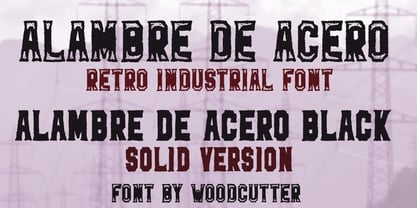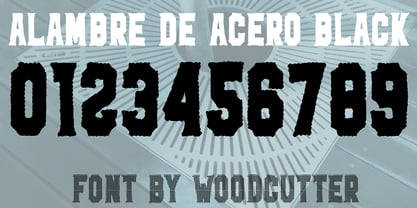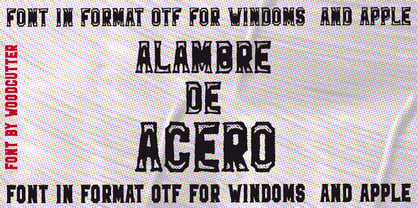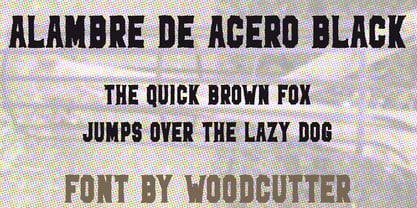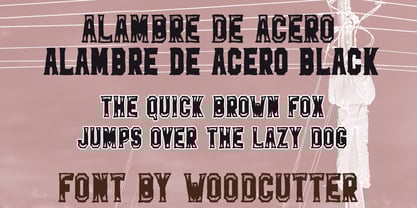
Alambre De Acero
by Woodcutter
The Alambre De Acero Font Family was designed by Jordi Manero and published by Woodcutter. Alambre De Acero contains 2 styles and family package options. More about this family
"Alambre De Acero" is a uppercase type family with accents, blending strength and elegance in a distinctly retro and decorative style. Its design features imperfect yet powerful outlines, reminiscent of handcrafted metal or woodwork textures. The typeface balances structural solidity with a touch of artistry, making it both visually captivating and unique. The family includes two complementary styles: "Alambre De Acero", featuring white decorative shadows at the top and bottom of each letter that create a subtle three-dimensional vintage effect, inspired by classic signage; and "Alambre De Acero Black", a fully solid black version that amplifies visual impact and delivers a bolder, more straightforward presence. The result is a versatile and expressive type family, perfect for vintage posters, logos, covers, or retro-industrial themed designs. Its combination of irregular details and bold construction gives it a distinctive personality, making it ideal for projects that demand visual strength, history, and a touch of handcrafted authenticity. "Alambre De Acero" stands as a tribute to retro craftsmanship—sturdy, stylish, and unforgettable.